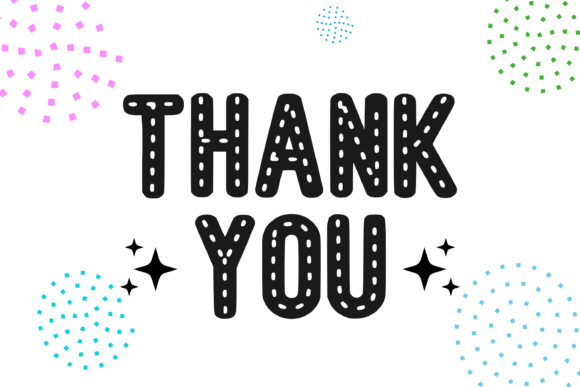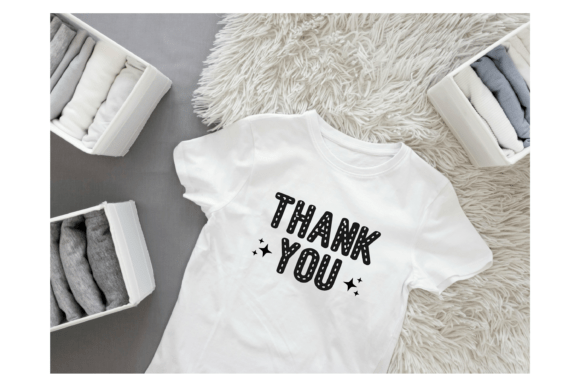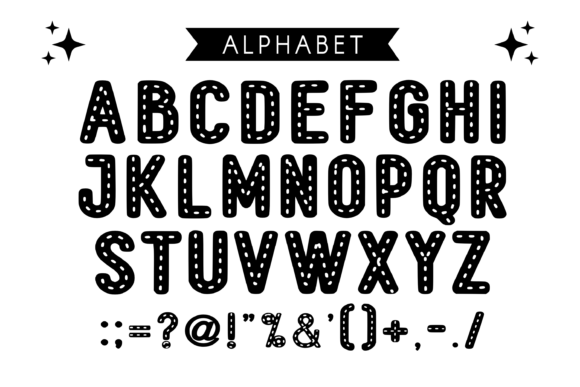
Unveiling Glitter Day: The Sparkly Font That Brings Joy to Your Designs
Have you ever been in the middle of a design project, and suddenly, you just can’t seem to find the right font? I recall a particularly frustrating moment when I was working on a birthday invitation for my niece. I wanted something that would capture her bubbly personality, but every font I tried seemed dull and uninspiring. That’s when I stumbled upon Glitter Day, a decorative font that instantly brought a smile to my face.
A Personal Connection to Glitter Day
As I began to experiment with Glitter Day, I realized that its playful, shimmering characters were exactly what I needed to bring my design to life. Each curve and stroke exudes a sense of liveliness and glimmer, making it perfect for projects that require a touch of whimsy. Whether you’re a designer, crafter, or creative hobbyist, Glitter Day is sure to become your new go-to font for adding a dash of fun and personality to your work.
An Honest Review of Glitter Day
- ✨ Playful and youthful vibe: Glitter Day’s shimmering characters instantly convey a sense of joy and spontaneity.
- ✅ Highly versatile: This font is perfect for a wide range of creative projects, from t-shirt designs to party invitations.
- 💫 Easy to read: Despite its decorative nature, Glitter Day remains clear and legible, even at smaller font sizes.
- 🎉 Great for kids’ parties and celebrations: The font’s playful spirit makes it an excellent choice for kids’ parties, birthday celebrations, and other festive occasions.
While Glitter Day is an amazing font, there are a few things to keep in mind:
- ⚠️ Not suitable for body text: Due to its decorative nature, Glitter Day is best used for headlines, titles, or short phrases.
- 🤔 May not work well with formal designs: This font’s playful spirit might not be the best fit for formal events, business projects, or minimalist designs.
One of the best things about Glitter Day is its support for OpenType features and glyphs. Here are a few tips for getting the most out of these features:
- Stylistic Alternates: Experiment with different stylistic alternates to add variety to your text.
- Swashes and Flourishes: Use swashes and flourishes to add a touch of elegance and sophistication to your design.
- Glyphs and Ligatures: Explore the font’s glyphs and ligatures to add visual interest and personality to your text.
The Backstory Behind Glitter Day
Glitter Day was designed with one goal in mind: to bring joy and sparkle to your designs. The font’s creator, a passionate typographer, wanted to craft a font that would capture the essence of celebration and playfulness. With its shimmering characters and lively spirit, Glitter Day is sure to become your go-to font for adding a touch of whimsy to your projects.
Q: What type of projects is Glitter Day best suited for?